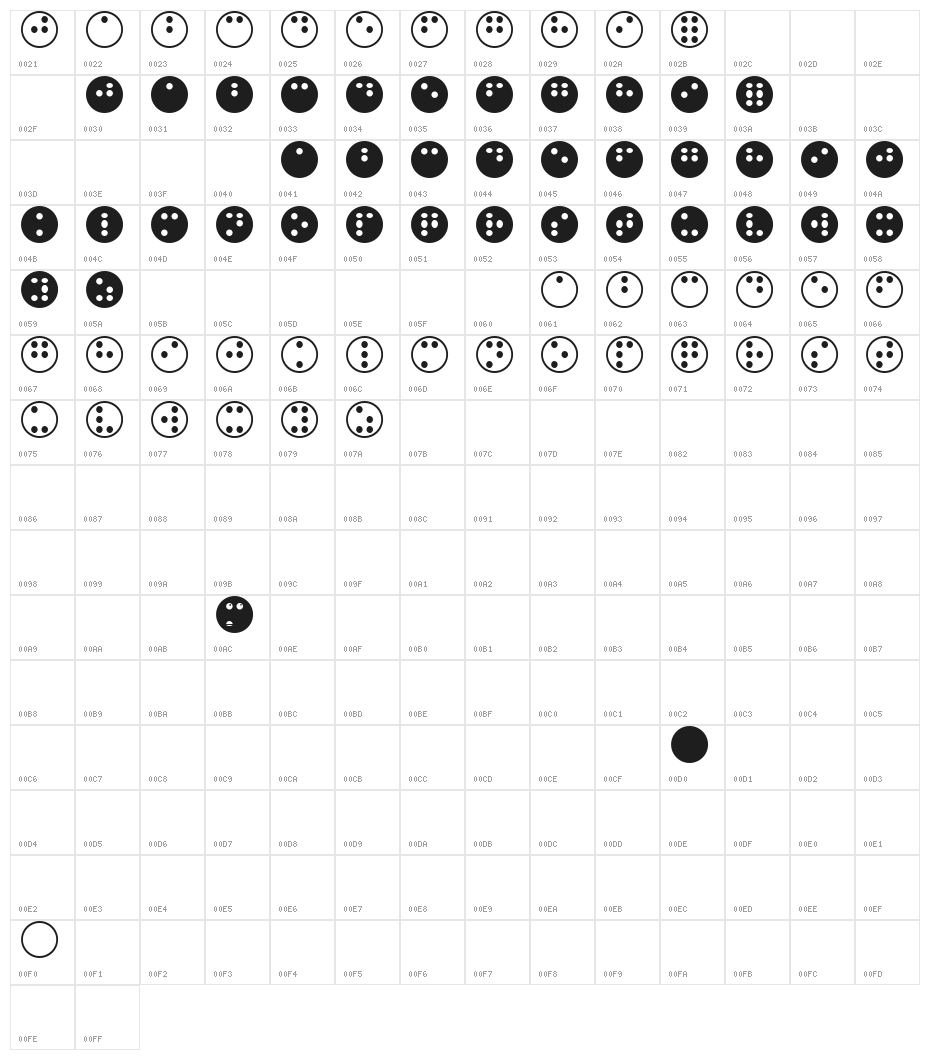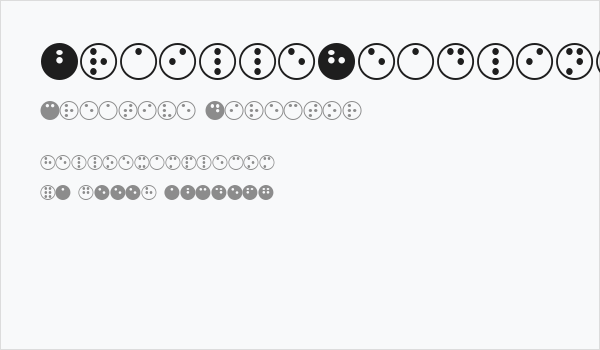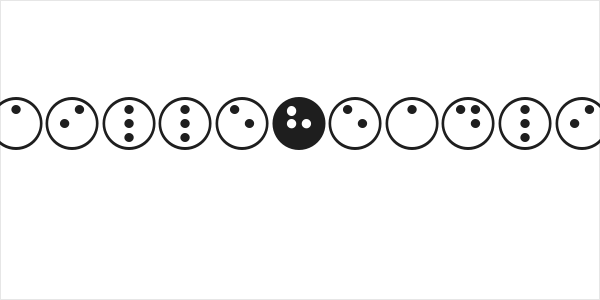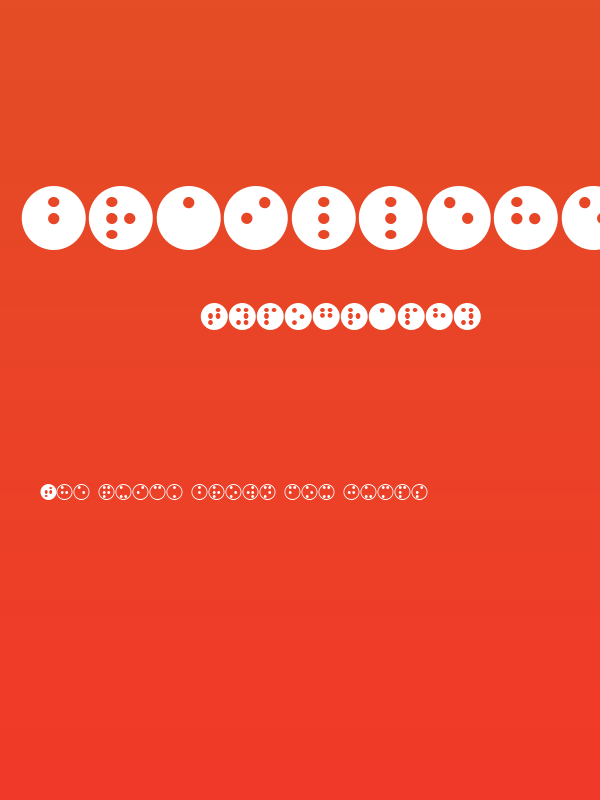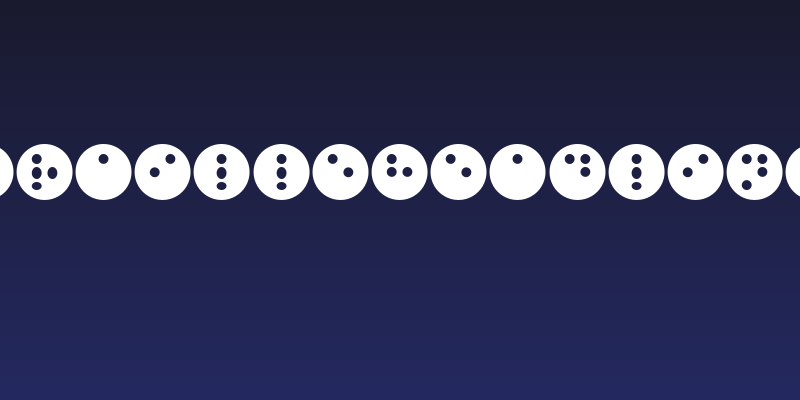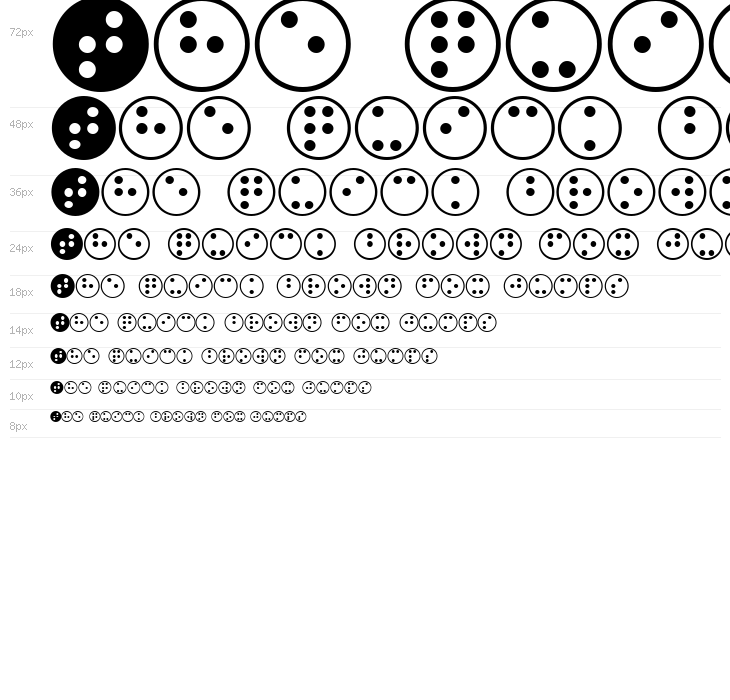
BrailleHeadline Font
BrailleHeadline Description
This is a Braille representation rather than a traditional font. It consists of raised dots arranged in cells, each containing up to six dots. The dots are organized in a grid of two columns and three rows. This tactile writing system is used by people who are visually impaired. Each cell represents a letter, numeral, or punctuation mark, and the arrangement of dots within each cell determines its meaning. The image shows a sequence of Braille cells that correspond to the English alphabet, numbers, and some special characters.
| Overall Style | Functional |
| Use Case | Accessibility, Educational materials |
| Proposed Projects | Ideal for creating accessible materials, educational tools for the visually impaired, and inclusive design projects. |